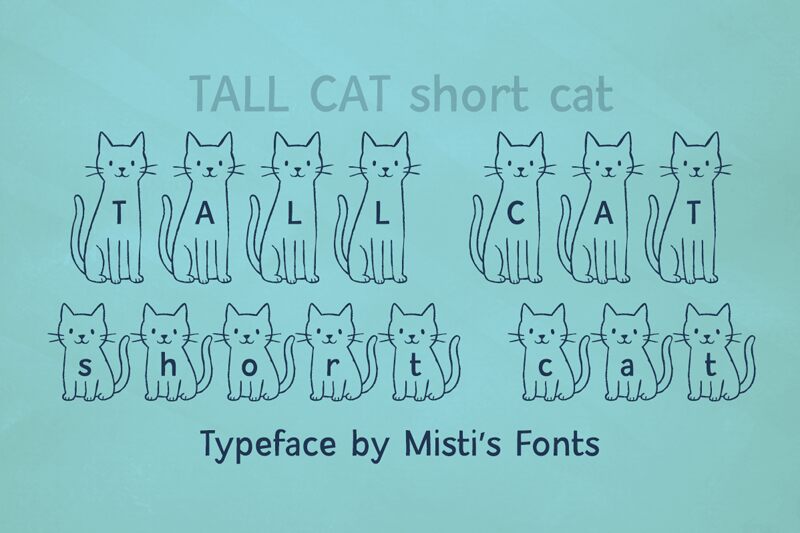
Tall Cat Short Cat font family by Misti's Fonts features two free, playful font styles inspired by the quirky nature of cats. It combines a whimsical and informal tone in all your artistic and contemporary applications, with a simple and lighthearted design that modern designs require. With the two font styles in the collection, you can present a light or heavy approach to the letter designs according to your needs in one or more designs.
Tall Cat Short Cat can be used for playful branding projects for pet-related businesses, especially with the eye-catching effect of the glyphs. The decorated look of the letters also makes them ideal for stationery tools and posters. And with a typography that appears to be friendly, kids will enjoy children's books and school presentations and posters that use this font family.
Tall Cat Short Cat typeface is a playful and imaginative decorative font that brings letters to life through charming feline illustrations. This unique font is perfect for a variety of projects, including posters, greeting cards, and social media graphics, adding a whimsical touch that captures attention.